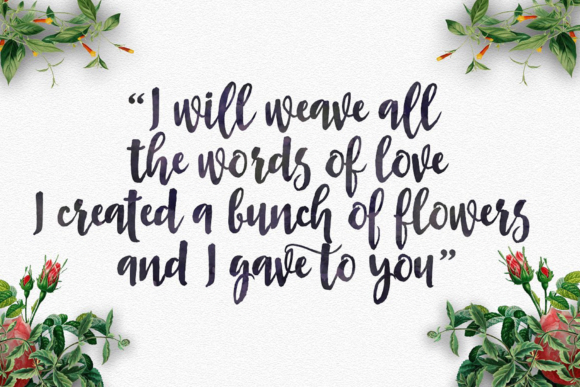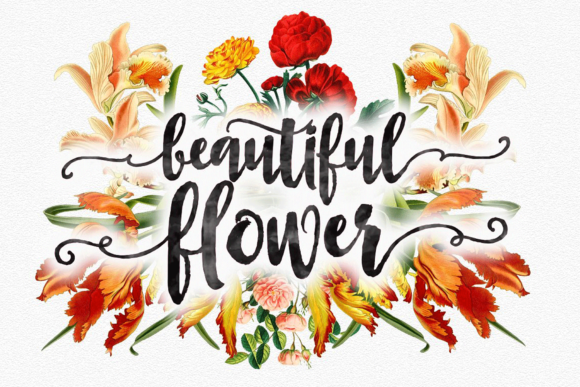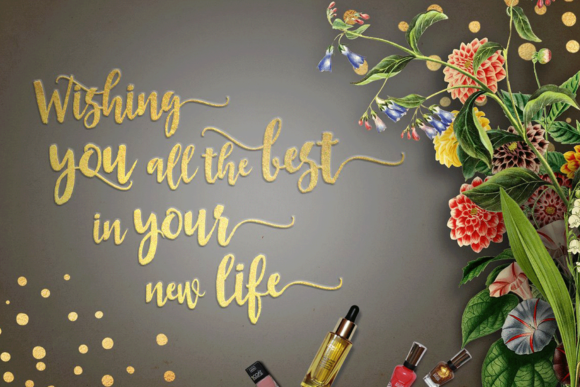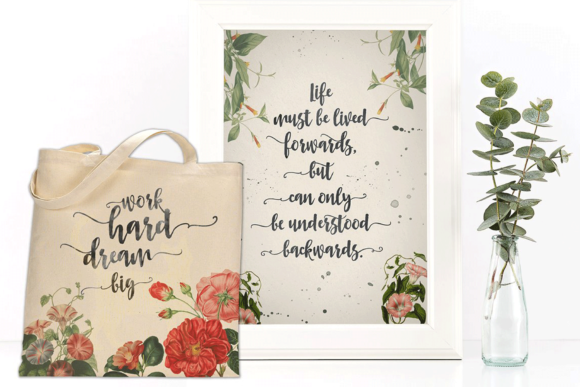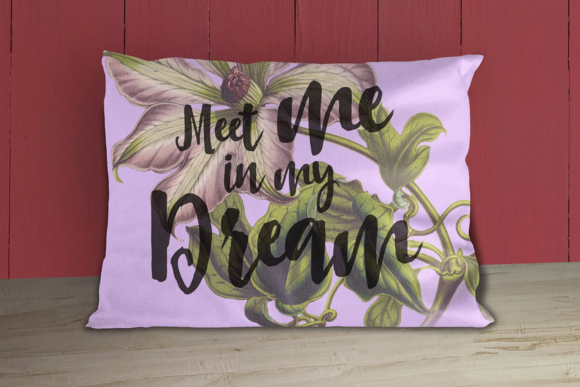
Unleash Your Creativity with the Perfect Handwritten Font
Have you ever stared at a blank page or screen, trying to come up with the perfect design to express your creativity? For many of us, finding the right font is the key to bringing our ideas to life. And that’s where the Asly Brush Font comes in – a delightful, handwritten font that’s sure to add a touch of personality to any project.
This charming font is designed to make your creative endeavors shine. With its gorgeous swashes and ligatures, the Asly Brush Font is perfect for everything from Instagram posts to DIY calligraphy projects. Whether you’re a seasoned designer or a hobbyist, this versatile font will help you turn your ideas into stunning works of art.
Asly Brush Font Key Features
- Unique Characteristics: Hand-drawn, brush-style font with a modern and elegant feel
- Character Set: Supports Latin, Cyrillic, and Greek alphabets, with over 1000 glyphs
- Style Options: Includes 6 styles: Light, Regular, Medium, Bold, Heavy, and Black
Asly Brush Font Review
When I first stumbled upon Asly Brush Font, I was immediately drawn to its unique and playful aesthetic ✨. The font’s brush-like strokes give it a handcrafted feel that’s perfect for adding a touch of whimsy to designs. The font’s weight and line variations also make it suitable for a wide range of applications, from logos to editorial content.
- The font’s brush-like strokes are well-executed, giving it a high-quality feel.
- The font’s weight and line variations make it versatile and easy to use.
- The font is suitable for a wide range of applications, from logos to editorial content.
However, there are a few limitations to consider ⚠️. The font may not be suitable for highly technical or professional applications, as its brush-like strokes can give it a more casual feel. Additionally, some characters may not be as refined as others, which can affect the overall legibility of the font.
Overall, I think Asly Brush Font is a great choice for designers looking to add a touch of personality to their work ✨. While it may not be suitable for every application, its unique aesthetic and versatility make it a valuable addition to any design toolkit.
The Asly Brush Font is ideal for creative projects, such as:
- Invitations and event designs
- Marketing materials and social media graphics
- Artistic quotes and typography-based designs
Remember to experiment with different font sizes, colors, and alignments to get the most out of the Asly Brush Font.
Alternatives to Asly Brush Font
Great Vibes Font is a beautiful, elegant script font that is perfect for creating a sense of sophistication and luxury. It is ideal for use in branding, advertising, and editorial design. Great Vibes Font has a more refined and polished look compared to Asly Brush Font, making it suitable for high-end projects.
Carolyna Pro Font is a modern, cursive script font that is great for creating a sense of elegance and sophistication. It is perfect for use in branding, packaging, and advertising design. Carolyna Pro Font has a more contemporary look compared to Asly Brush Font, making it suitable for modern and trendy projects.
Pacifico Font is a beautiful, elegant script font that is perfect for creating a sense of relaxation and calmness. It is ideal for use in branding, packaging, and editorial design. Pacifico Font has a more laid-back and casual look compared to Asly Brush Font, making it suitable for projects that require a relaxed and friendly tone.
Alex Brush Font is a beautiful, elegant script font that is perfect for creating a sense of sophistication and elegance. It is ideal for use in branding, advertising, and editorial design. Alex Brush Font has a more refined and polished look compared to Asly Brush Font, making it suitable for high-end projects. It is also a great alternative for Asly Brush Font as it has a similar style and feel.
Asly Brush Font Creative Projects
Create a unique and eye-catching wedding invitation using the Asly Brush Font. This font is perfect for a whimsical and romantic theme.